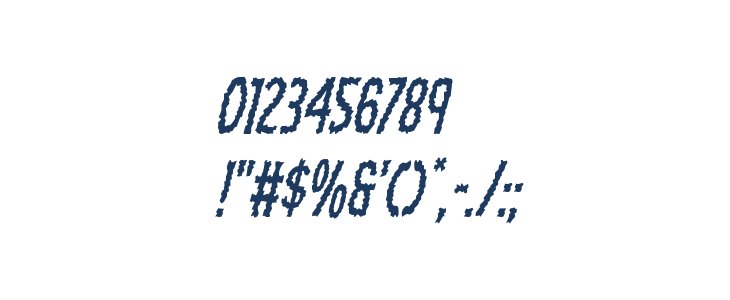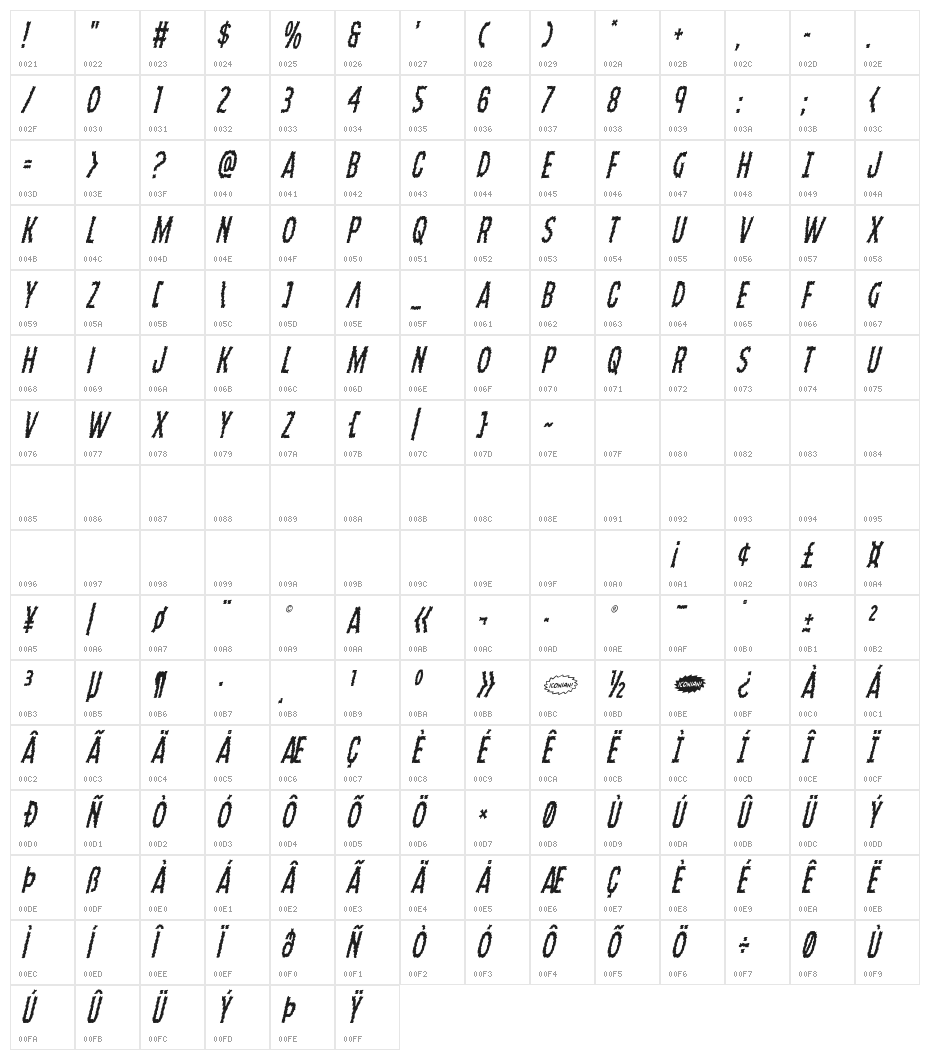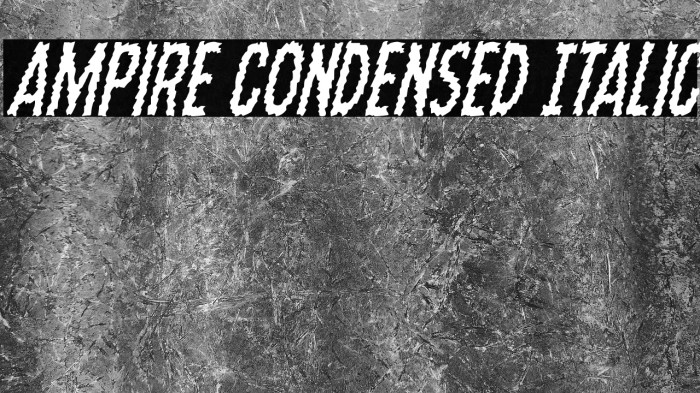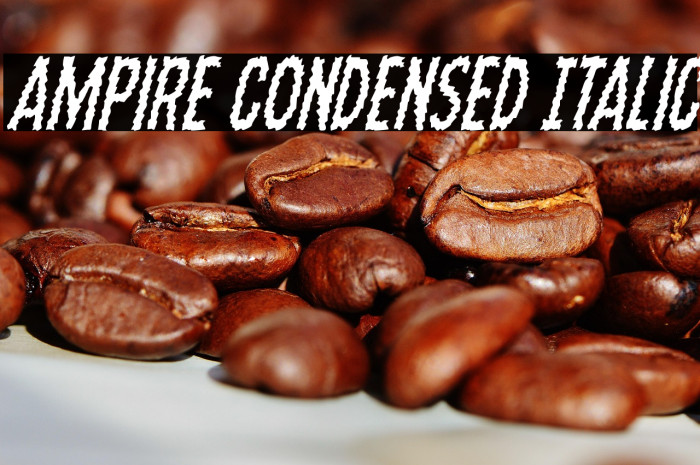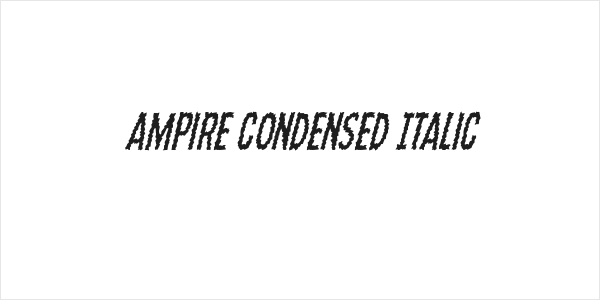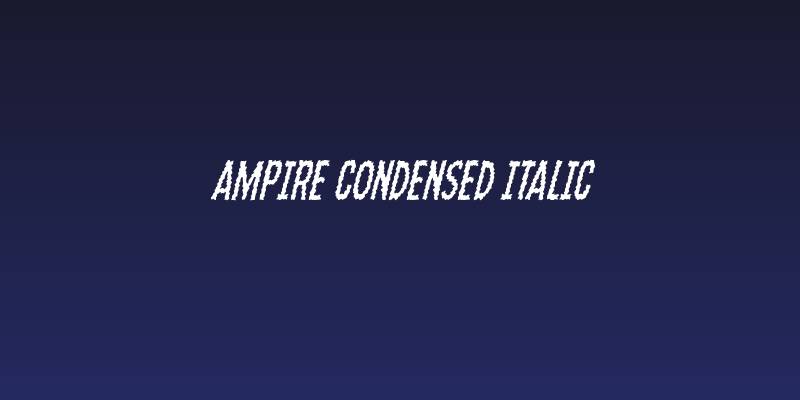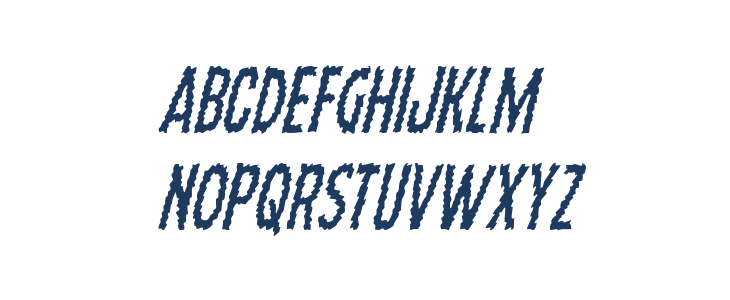
Ampire Condensed Italic Font
Ampire Condensed Italic Description
This font features a dynamic and energetic style with a condensed and italicized form. The characters are sharply angled, giving a sense of movement and urgency. The strokes are bold and jagged, creating a striking visual impact. The uppercase and lowercase letters maintain a consistent slant, enhancing the italic effect. Numbers and special characters follow the same stylistic cues, ensuring uniformity across all glyphs. This font's unique appearance makes it suitable for attention-grabbing designs.